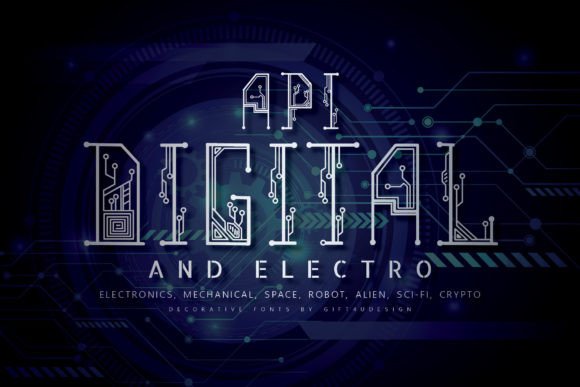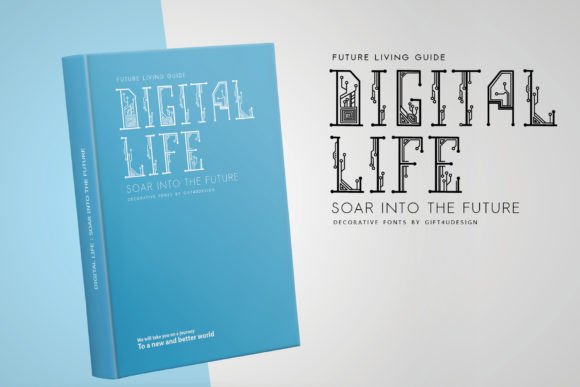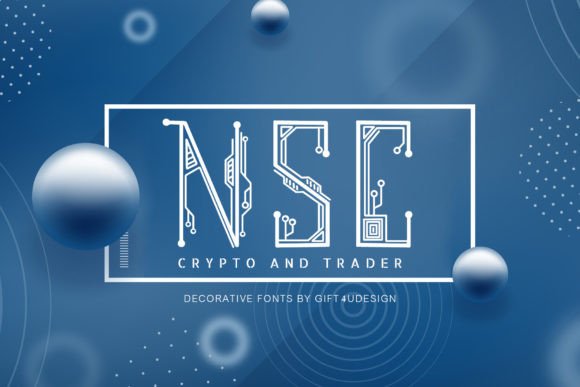
Api-digital Font
About the Api-digital Font
Welcome to the world of Api-digital Font, a typeface that will inspire your next great project. Api-Digital is a decorative font for printed circuit boards. Refers to digital, multimedia, electronics, space, sci-fi, robots, crypto, or anything else that is technological. It can be used in conjunction with other fonts easily.
Api-Digital excels in headline applications, logos, and short, impactful text within technological branding. Its strong, angular forms are ideal for posters, packaging, and even short website copy related to tech, gaming, or science fiction. However, its decorative nature makes it unsuitable for body text or long paragraphs; readability suffers at smaller sizes.
The font’s core personality is bold and futuristic, conveying a sense of innovation and energy. It pairs well with clean sans-serif fonts like Open Sans or Roboto for a balanced contrast, or with a geometric sans-serif for a cohesive, modern aesthetic. A contrasting script font could add a touch of elegance to certain applications where needed.
Avoid using Api-Digital in user interfaces (UI) or situations requiring high legibility over extended text blocks. Its unique design is best deployed strategically to create visual impact.
Api-digital Font Usage Examples
Api-digital Font Example